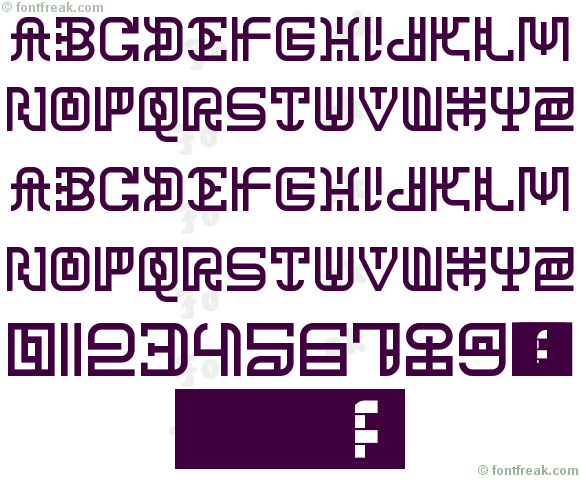
Chana Remedy Regular
Chana Remedy Regular is a unique display font designed by Adien Gunarta, released in 2011 under a freeware license. This typeface falls into the category of decorative fonts, characterized by its bold, geometric forms and playful style. Its stroke weight is consistent, lending a sense of solidity, while the overall design features a moderate contrast that enhances readability without sacrificing its artistic flair. The spacing between letters is well-balanced, allowing for clear legibility in various contexts. The decorative elements of the font give it a distinctive personality, making it ideal for creative projects.
This font shines in several specific use cases. It is an excellent choice for eye-catching wedding invitations, where its playful style can evoke a sense of joy and celebration. Additionally, Chana Remedy Regular works wonderfully for movie posters, providing a unique aesthetic that can draw attention to the film's title. Restaurant menus can also benefit from its striking appearance, making dishes stand out and creating an inviting atmosphere. Furthermore, this font is suitable for branding purposes, particularly for small businesses looking to establish a memorable identity that resonates with their audience.
Targeting graphic designers, small business owners, and content creators, Chana Remedy Regular offers a versatile option for those looking to add a touch of creativity to their projects. Its unique visual characteristics and playful design make it a standout choice in the realm of decorative fonts. For anyone interested in enhancing their design toolkit, the Chana Remedy Regular font free download is a fantastic opportunity to incorporate a distinctive typeface into their work. Its ability to blend artistry with functionality truly sets it apart in a crowded font landscape.